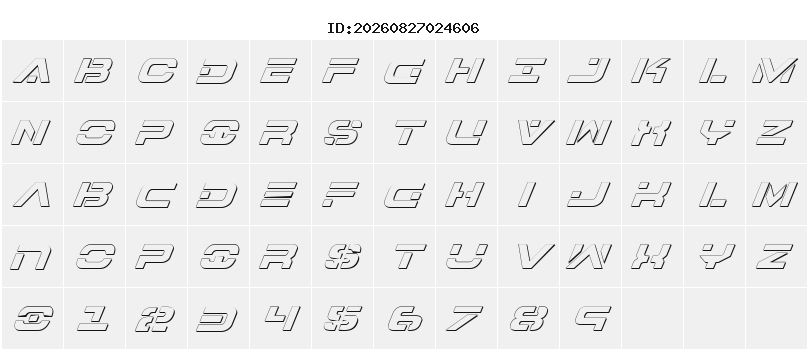
7th Service Outline Italic Preview
• Font Name: 7th Service Outline Italic
• Font Style: Outline Italic
• Font ID: 7th Service
• Full Font Name: 7th Service Outline Italic
About 7th Service Outline Italic.ttf
7th Service Outline Italic.ttf is a modern, elegant sans-serif font designed for ultimate readability and visual harmony. Perfect for branding, headlines, web design, and print materials.